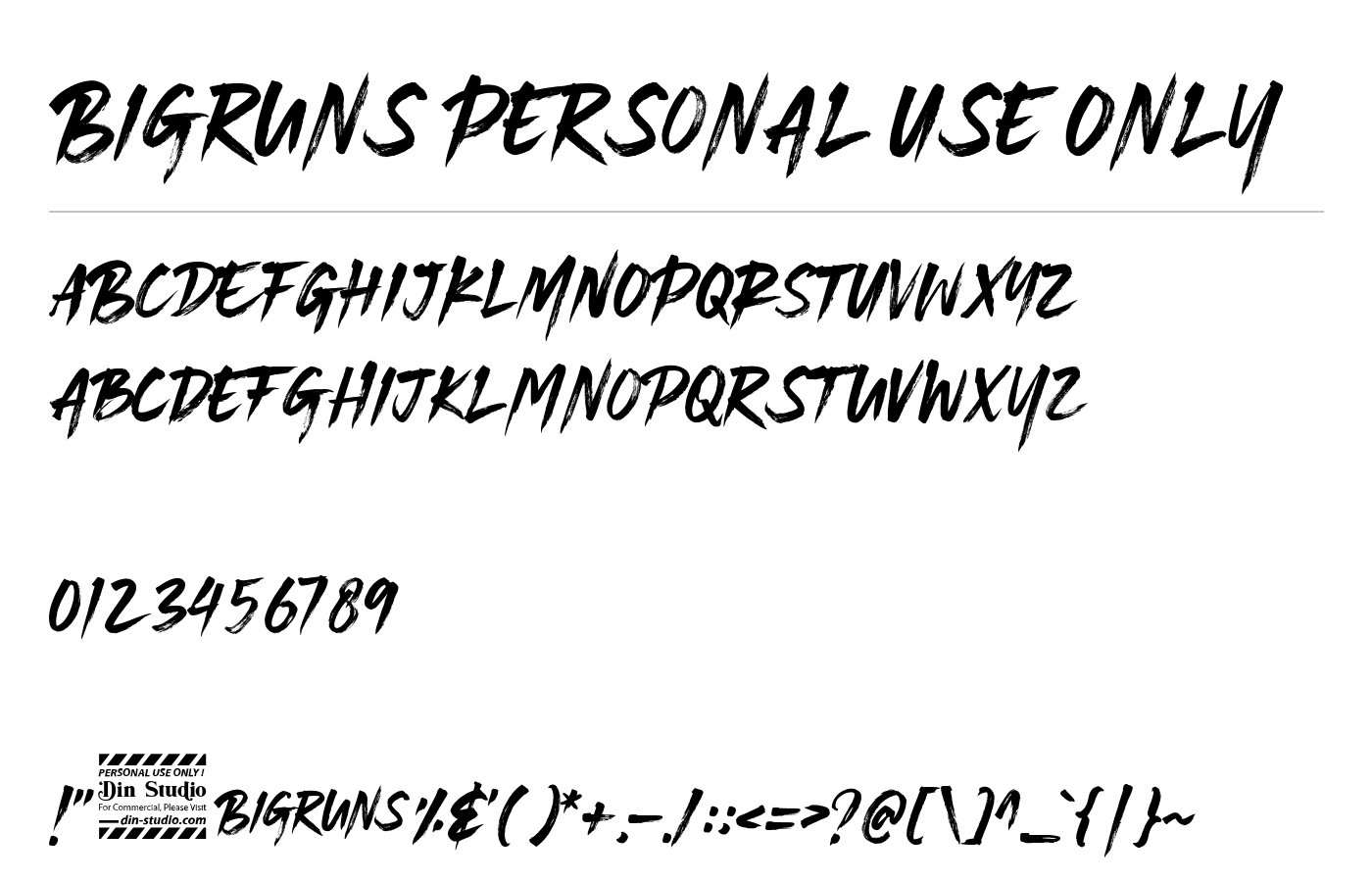
Bigruns Personal Use Only is an energetic brush script font featuring bold, textured strokes that give a hand-painted, casual vibe. Its tall, slightly condensed letterforms with rough edges create a dynamic and expressive look, perfect for designs that need a spirited, informal touch. This font works well for eye-catching headlines, branding, and creative projects where a lively, artistic feel is desired.
Bigruns Personal Use Only Font
About Bigruns Personal Use Only Font
| Font family | Bigruns Personal Use Only Font |